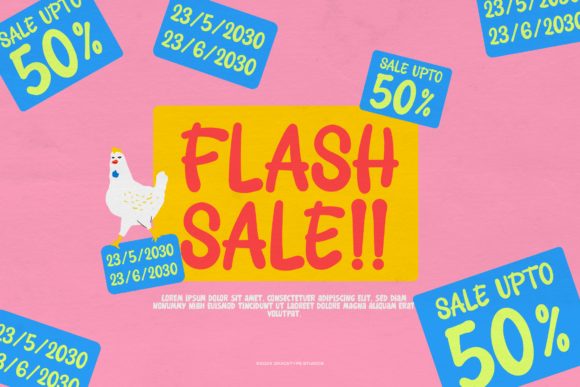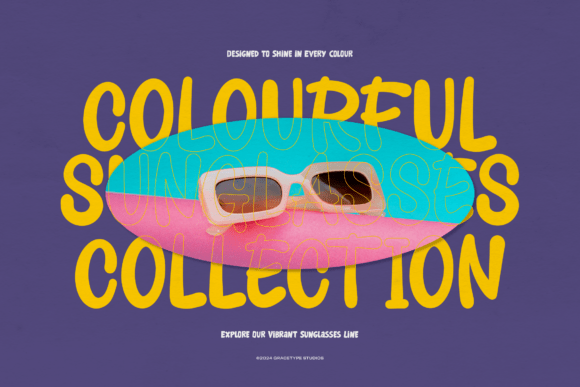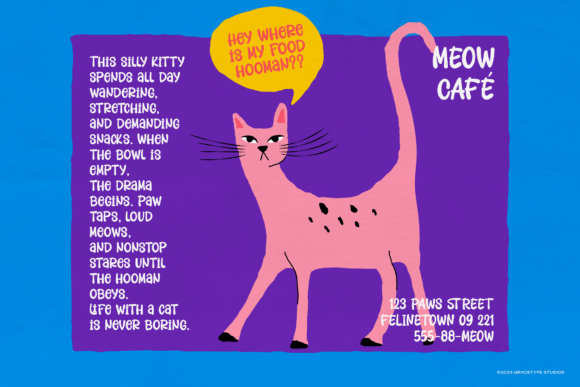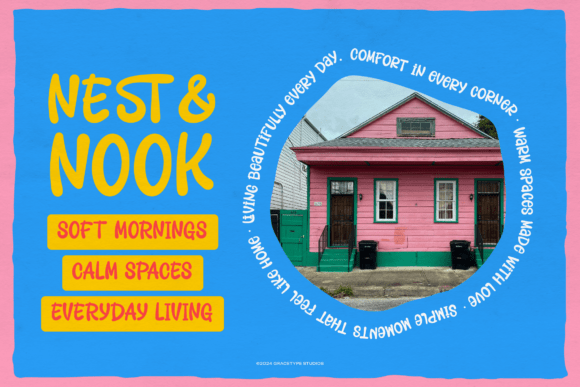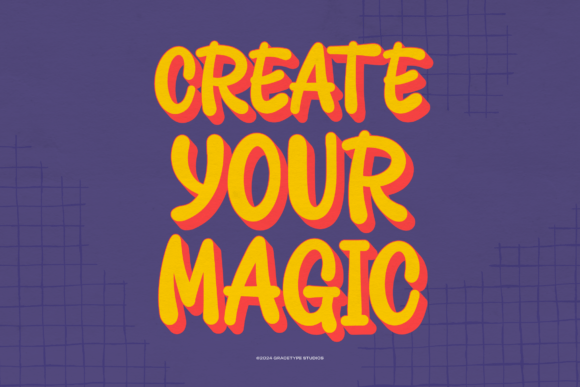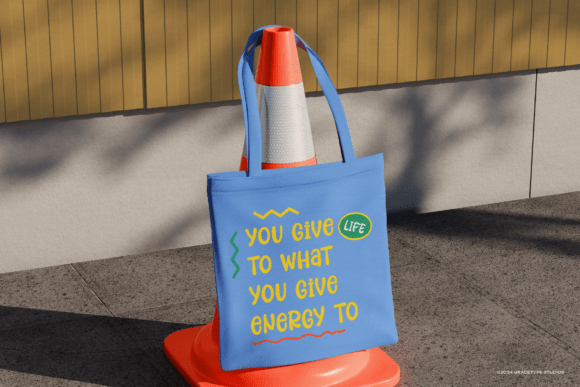
Introduction to Jolly Blump Font
Who hasn’t been there – stuck in a creative rut, staring at a blank canvas, and desperately seeking inspiration to bring a project to life? For many designers, it’s the perfect moment to break the mold and inject some personality into their work. And that’s exactly where Jolly Blump Font comes in – a vibrant, hand-drawn display typeface that embodies the very essence of fun and playfulness.
As a go-to design resource for creatives, Jolly Blump Font is a treasure trove of high-quality, customizable elements that can elevate any project to new heights. With its bold, bubbly letterforms and chunky, rounded shapes, this font is perfect for kids’ products, playful branding, and social media posts that need to stand out from the crowd. And the best part? It’s free to download, making it an accessible design resource for designers of all levels.
Whether you’re working on a creative project that requires a transparent background or a design that needs to shout loud and proud, Jolly Blump Font is an invaluable addition to your design arsenal. Its joyful character and legible strokes make it an instant hit with designers who crave a little bit of whimsy and personality in their work.
Key Features of Jolly Blump Font
- High-quality, unique font design perfect for creative projects
- Comes with transparent background, ideal for overlaying on images
- Unique characteristics include a playful, whimsical feel and varied font sizes
- Resolution: Optimized for high-resolution displays, perfect for print and digital projects
- Size: Includes a range of font sizes, from 12 to 72 points, for versatile use in creative projects
Honest Review: Jolly Blump Font
I recently stumbled upon the Jolly Blump Font, and I’m excited to share my thoughts on this free download. As a designer, I appreciate high-quality design resources that can elevate my creative projects.
- ✨ The font’s playful, hand-drawn style is perfect for creating whimsical and fun designs.
- ✨ The transparent background makes it easy to use in various design contexts.
- ✨ The font is highly customizable, allowing for flexibility in terms of size, color, and spacing.
- ⚠️ The font may not be suitable for formal or professional projects, as it has a more casual and childlike feel.
Overall, I’m impressed with the Jolly Blump Font’s versatility and creativity. While it may have some limitations, it’s a great addition to any designer’s toolkit. Whether you’re working on a children’s book, a party invitation, or a social media campaign, this font is sure to bring a smile to your audience’s faces.
Tips for Getting the Most Out of Jolly Blump Font
To get the most out of the Jolly Blump Font, experiment with different font sizes, colors, and styles. You can also pair it with other fonts to create a unique and eye-catching design. Don’t forget to check the font’s compatibility with your chosen design software.
The Jolly Blump Font is perfect for a variety of creative projects, including logos, graphics, presentations, and documents. Its high quality and unique style make it an excellent choice for any business or personal project.